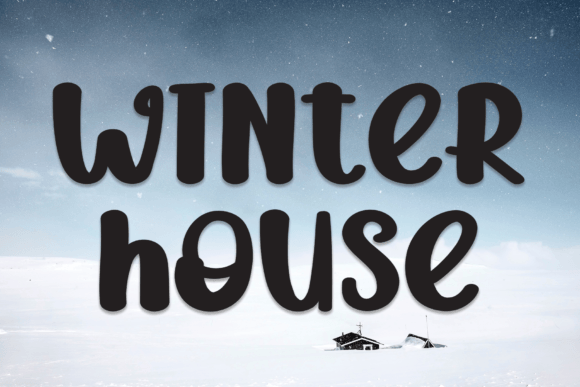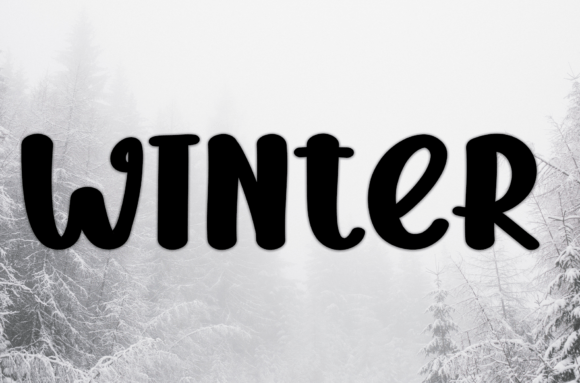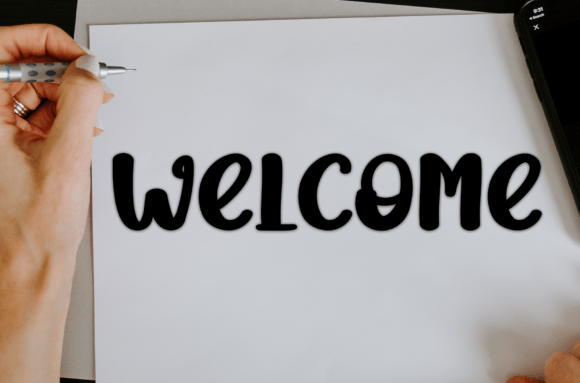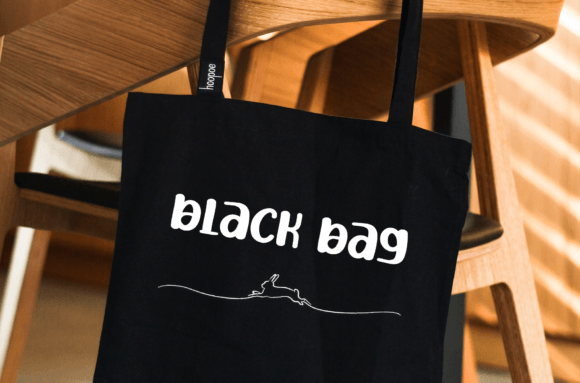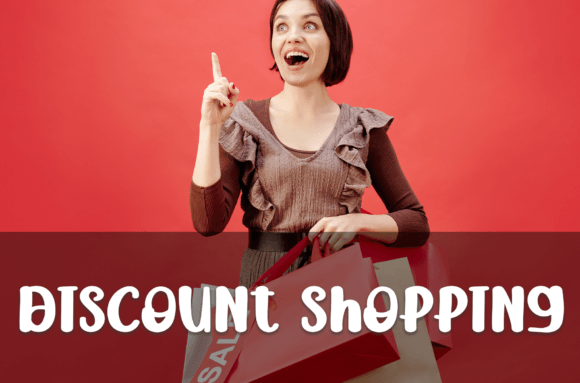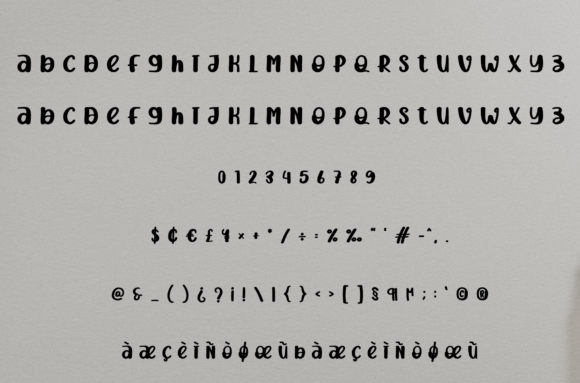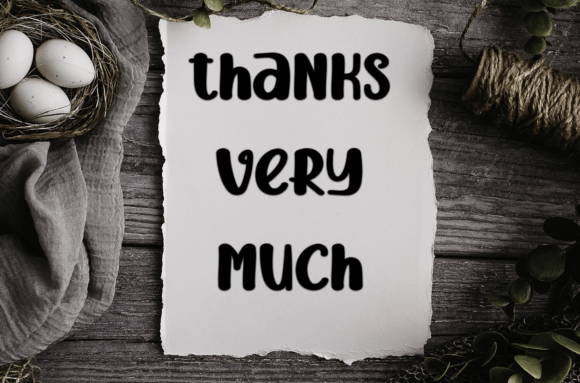
Winter House Font
About Winter House Font
Winter House font is a warm and friendly handwritten typeface thoughtfully designed to become a favorite addition to your fon collection. Its inviting style brings a personal, handcrafted feel that works wonderfully across many design projects. Whether you’re crafting invitations, branding materials, or social media visuals, Winter House fon will breathe life and personality into your work.
Warm and Inviting Handwriting Style
The charm of Winter House fon comes from its smooth, flowing strokes and approachable letterforms. It blends a natural, casual look with readability, making it suitable for a wide range of uses. This font’s style is both modern and timeless, giving your projects an authentic and engaging appearance.
Versatile Uses for Winter House Font
Winter House font shines in many creative applications, including:
• Wedding invitations and greeting cards
• Brand logos and corporate stationery
• Social media posts and digital marketing
• Personalized notes and creative lettering
• Flyers, posters, and printed materials
Thanks to its versatile and friendly design, Winter House font performs well in both print and digital formats, ensuring your projects maintain consistent charm.
Adding Personality and Warmth
Using Winter House fon adds warmth and a personal touch to your designs. Its handwritten style helps create a deeper connection with your audience, making messages feel genuine and heartfelt. The font’s friendly vibe enhances the overall impact of your creative work.
Why Choose Winter House Fon?
• Warm and friendly handwritten style
• Clear and easy-to-read letters
• Versatile for many creative projects
• Adds a personal, inviting touch
• Suitable for print and digital use
Final Thoughts on Winter House Font
In conclusion, Winter House fon is a friendly and inviting handwritten fon perfect for wedding invitations, branding, social media, and more. Its warm and lively style makes it an excellent choice for designers seeking to add personality and charm to their work.